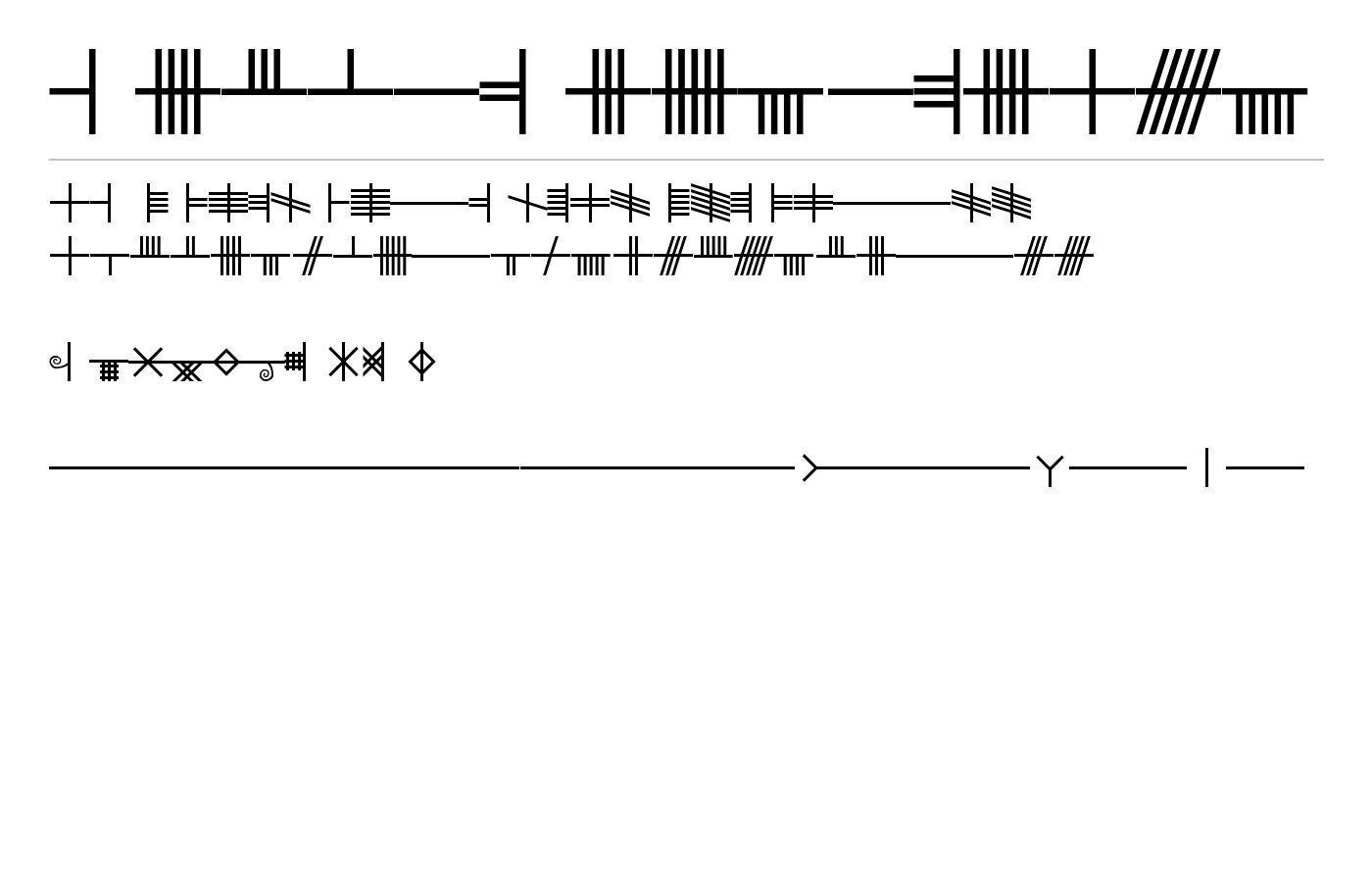
Beth-Luis-Fearn is a highly unique and symbolic font that draws inspiration from ancient scripts, characterized by its linear, geometric strokes and intricate glyph shapes. This font evokes a mysterious and archaic feel, making it ideal for projects that seek to convey an enigmatic or historical mood, such as fantasy works, cultural artifacts, or thematic designs requiring a distinctive, ornamental look. Its specialized and decorative nature makes it best suited for display use rather than body text, where it can shine as a striking visual element.
Beth-Luis-Fearn Font
About Beth-Luis-Fearn Font